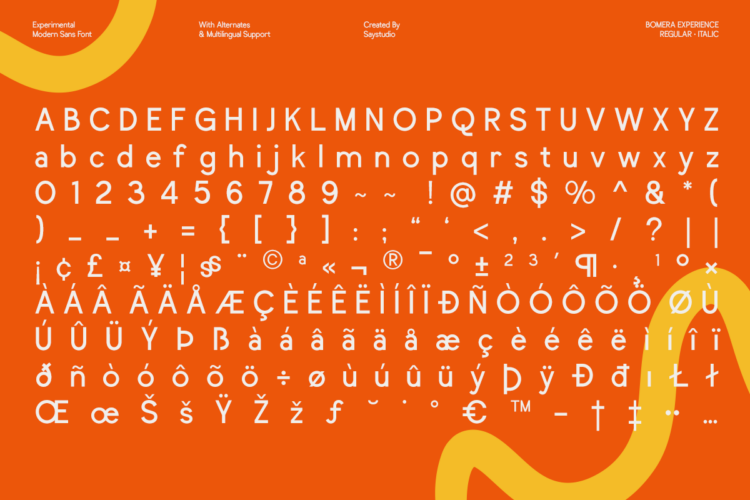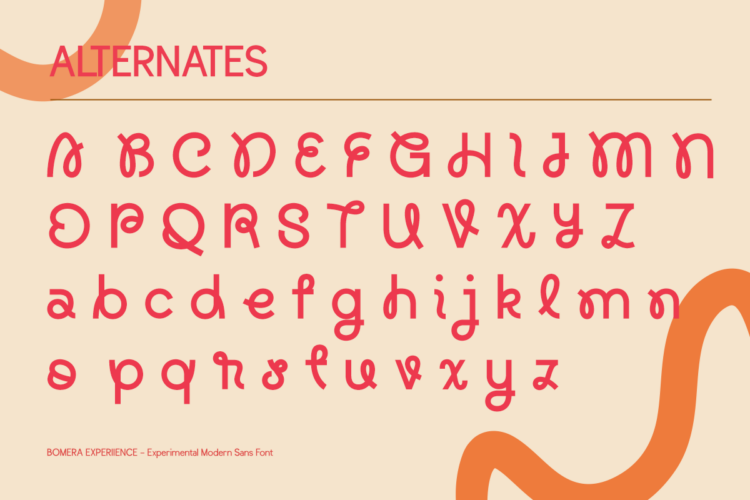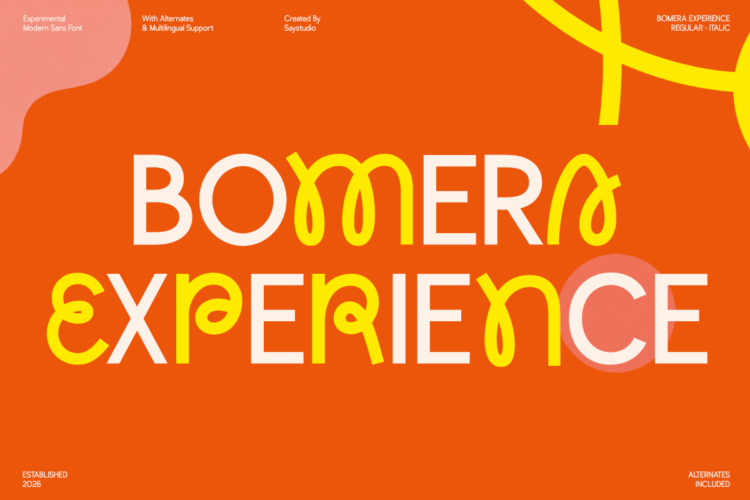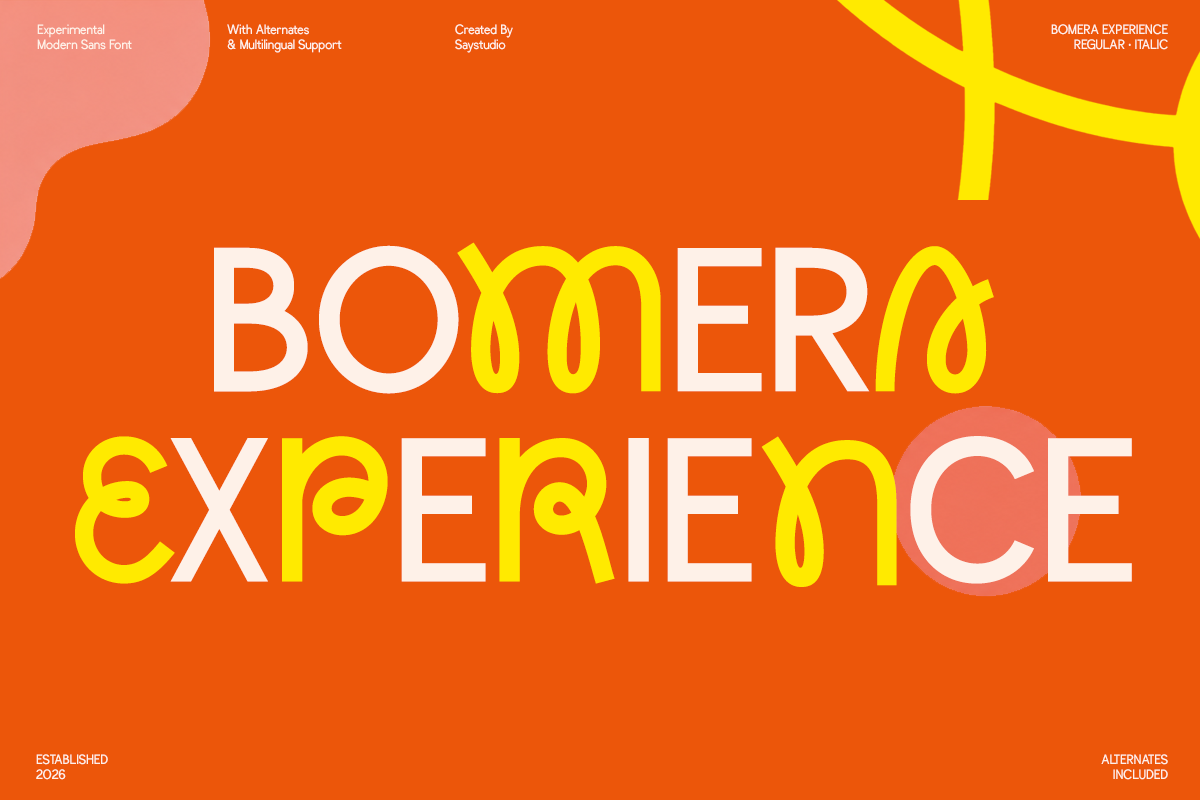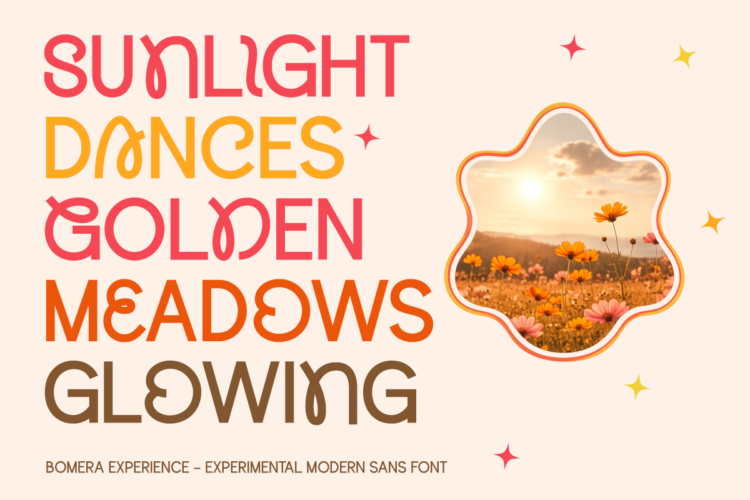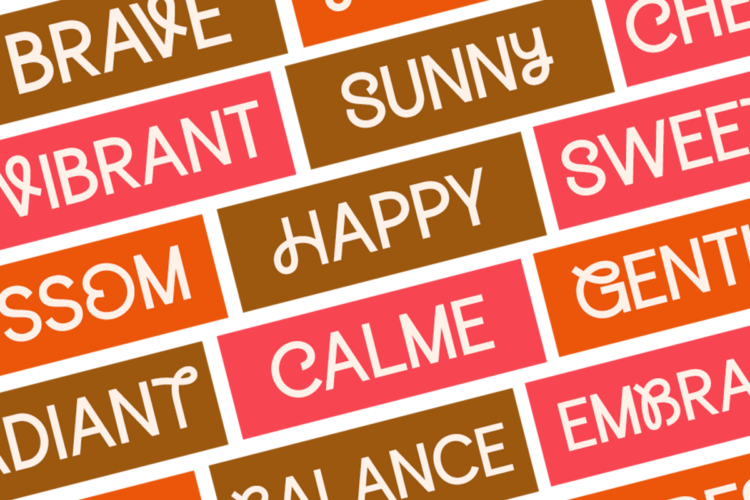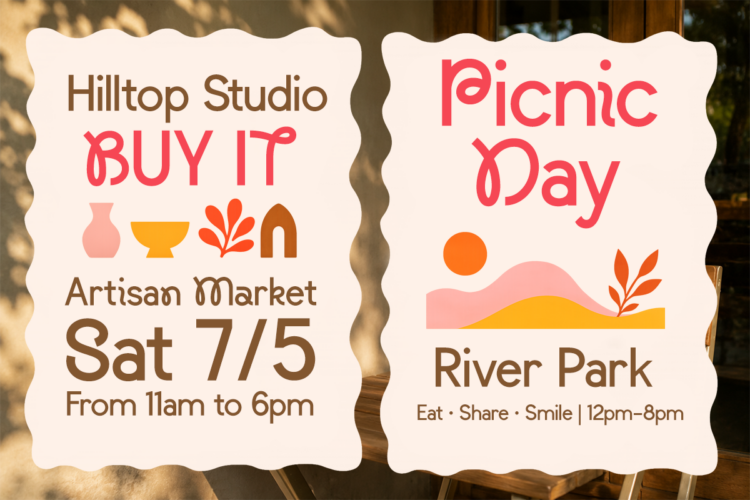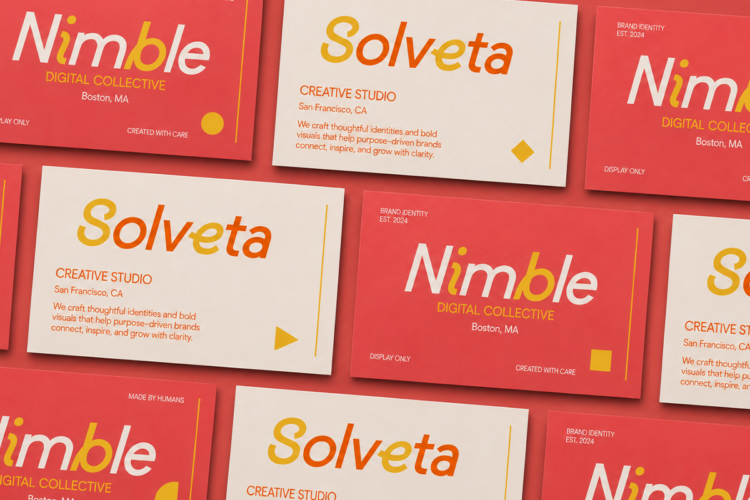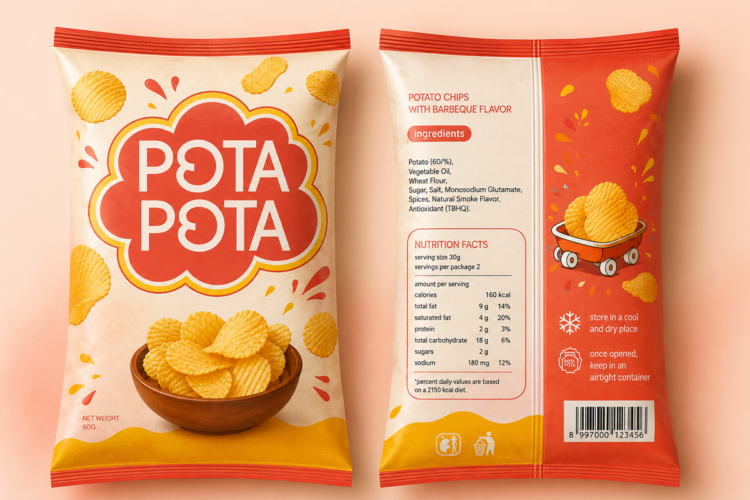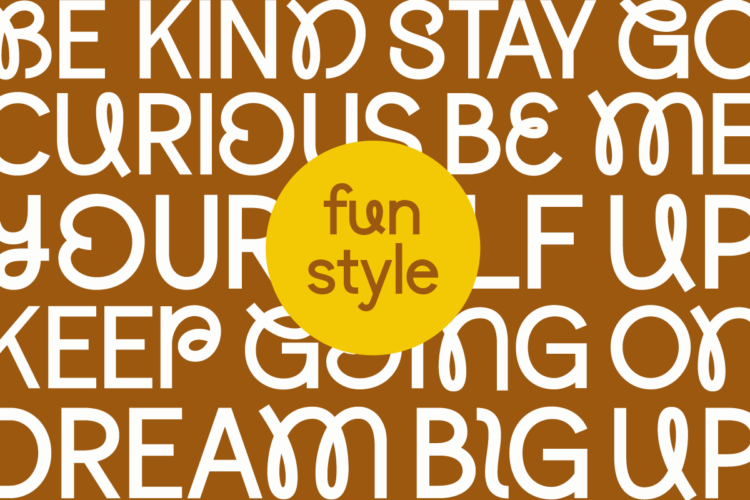
Bomera Experience – Experimental Sans Serif Font
Bomera Experience is an experimental sans serif font that blends bold geometry with playful, unconventional letterforms. Designed to stand out, its distinctive shapes and creative ligatures make it perfect for projects that demand originality and a modern visual identity.
Whether you’re creating branding, logos, posters, packaging, editorial layouts, social media content, album covers, fashion campaigns, or creative headlines, Bomera Experience delivers a fresh and memorable typographic style. Its balance of clean sans serif construction and experimental details makes it versatile for both digital and print applications.
- Regular and Italic Style
- Experimental Stylistic Alternates
- Number, Symbol, and Punctuation
- Multi Language Support